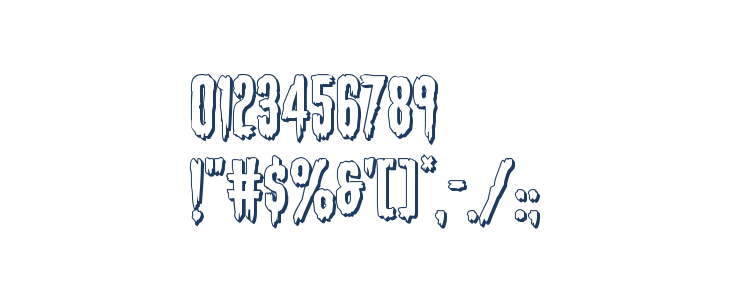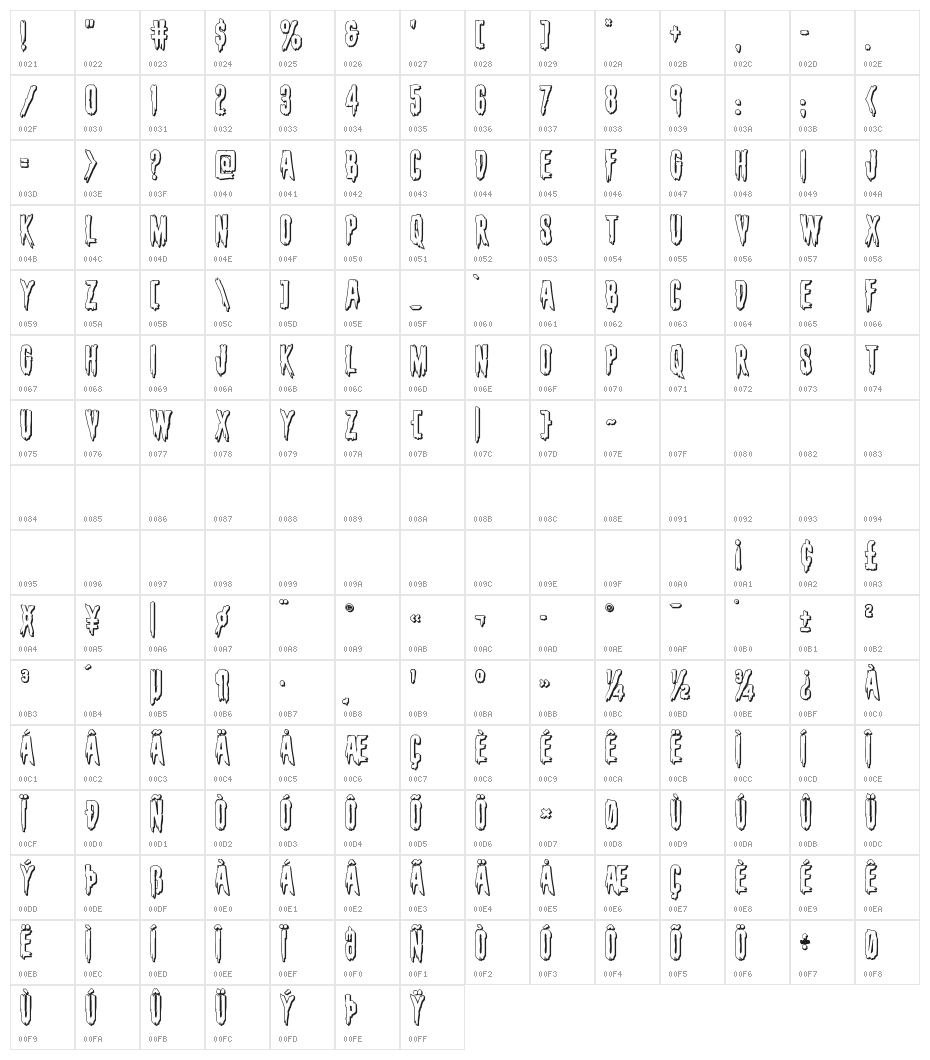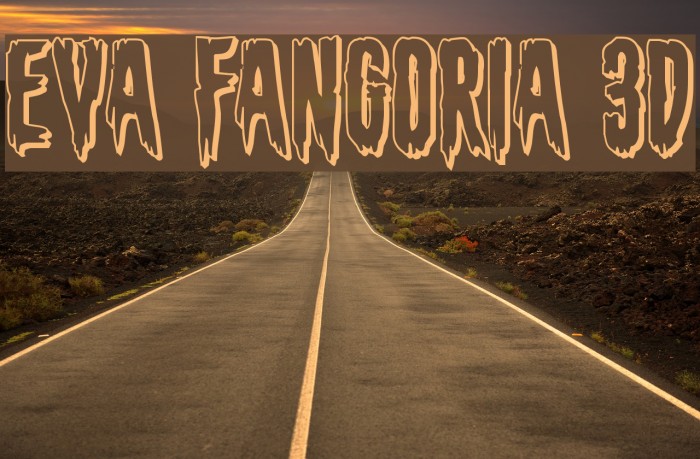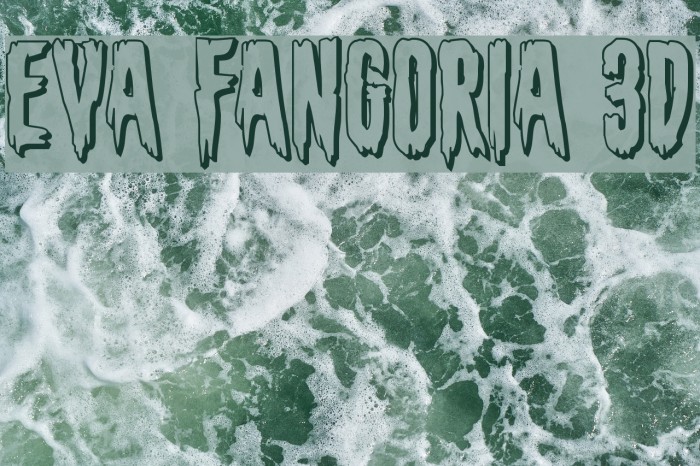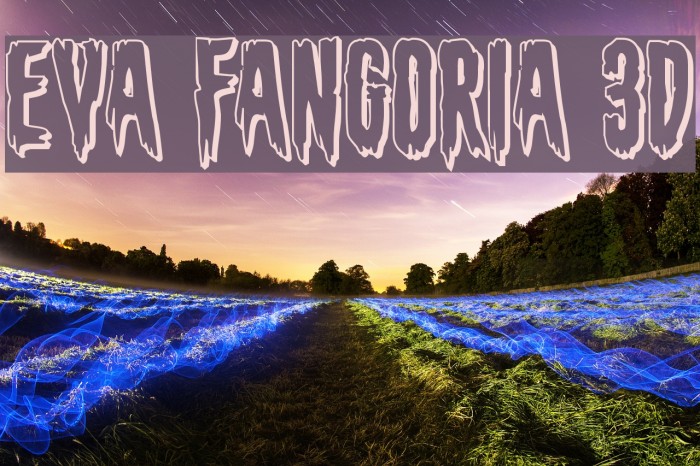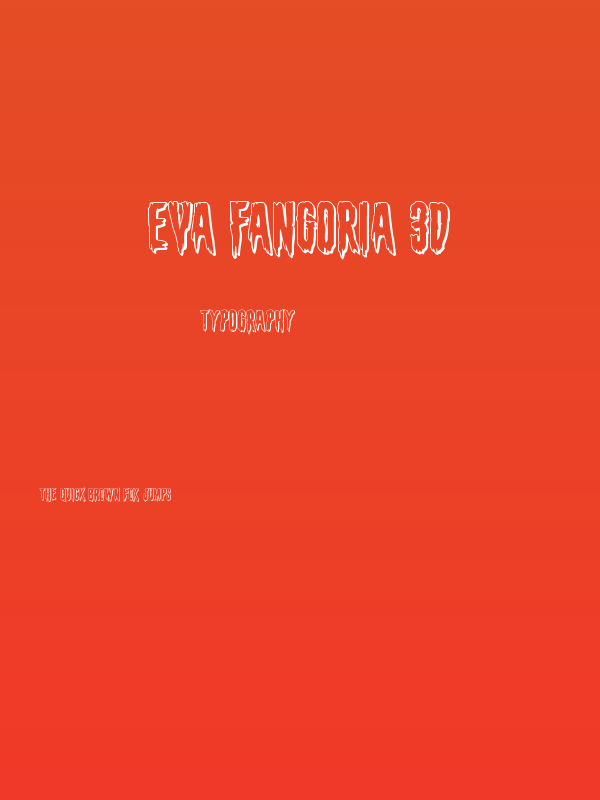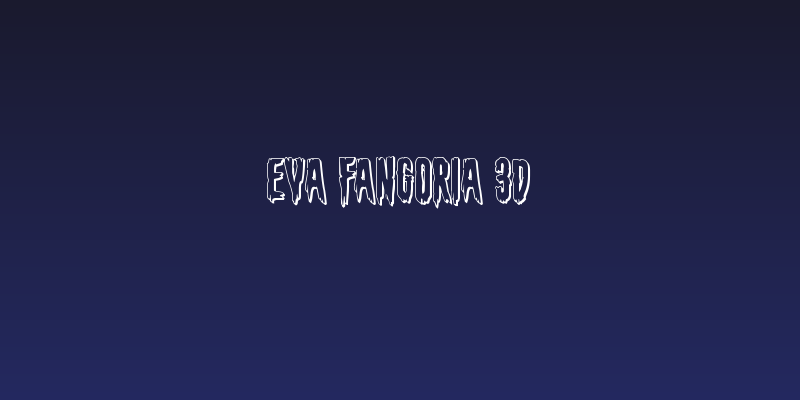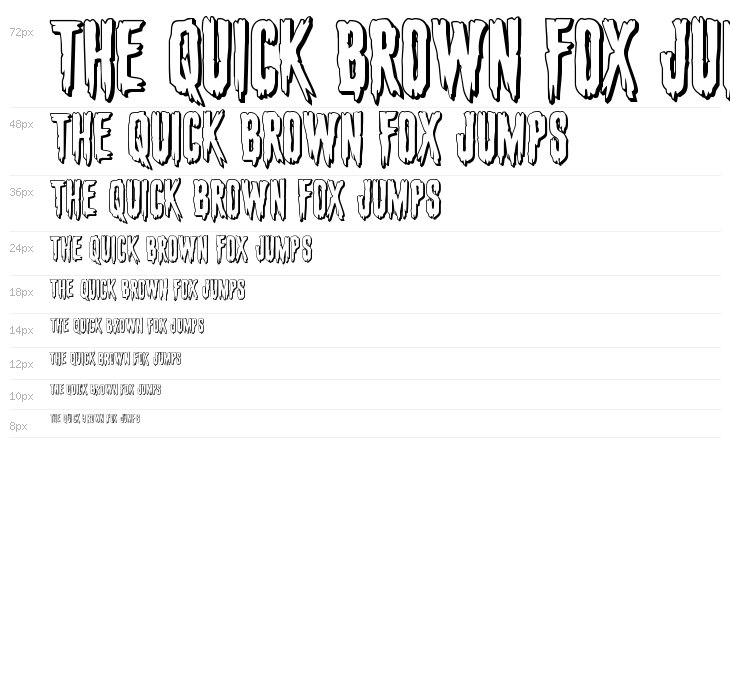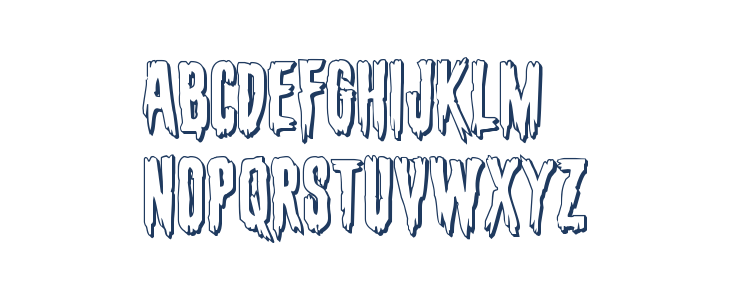
Eva Fangoria 3D Font
Eva Fangoria 3D Description
This font features a bold, dramatic style with a 3D effect that gives it a striking, attention-grabbing appearance. The letters are jagged and irregular, resembling dripping or melting forms, which adds a sense of horror or mystery. The uppercase and lowercase letters maintain this unique style, making it suitable for thematic designs. The numbers and special characters are equally stylized, ensuring consistency across all characters. The font's design is reminiscent of classic horror movie posters, making it ideal for projects that require a spooky or eerie aesthetic.
Proposed ProjectsIdeal for Halloween-themed designs, horror movie posters, spooky event invitations, and themed merchandise.